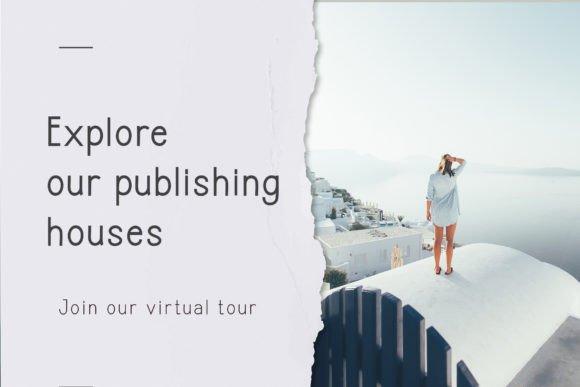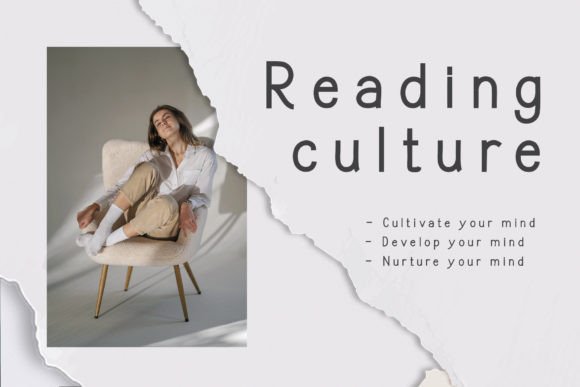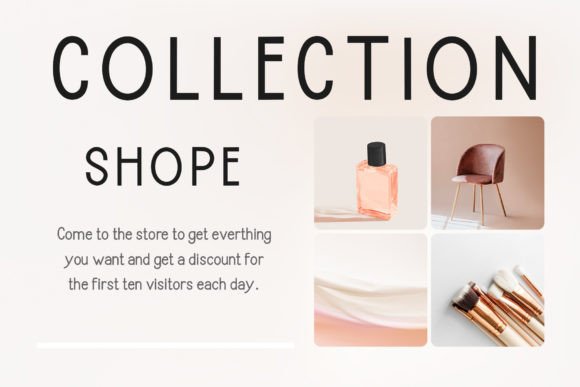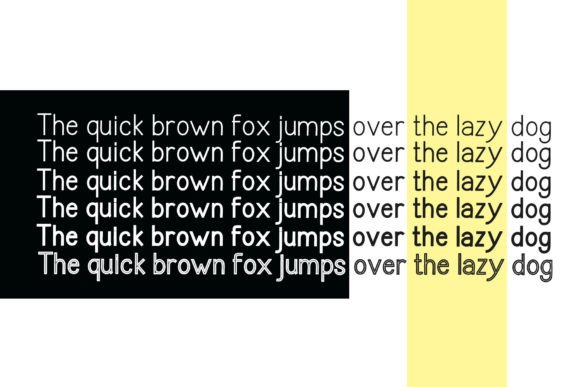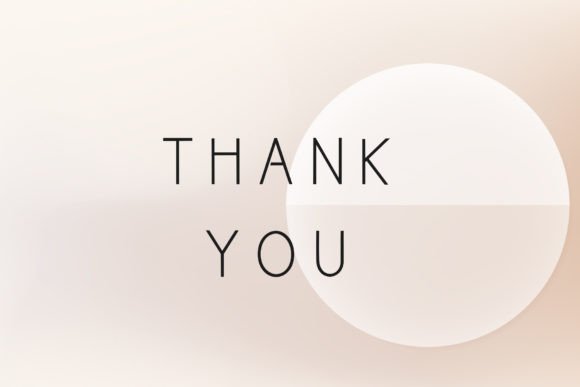
Introduction to Manila Font Font
Fonts play a crucial role in design, and the Manila Font font is a typeface that brings both character and versatility to any project. Whether you’re working on a branding project, a website, or a print design, the Manila Font font offers a unique style that can elevate your work.
Manila is a sleek, professional looking sans serif font.
Incredibly versatile, this typeface is suitable for a wide spectrum of applications .
Key Features of Manila Font Font
Why Choose Manila Font Font?
The Manila Font font is more than just a typeface – it’s a design tool that helps you communicate your message with style and clarity. Its unique character set and versatile design make it suitable for a wide range of applications, from elegant invitations to bold headlines.
With its carefully crafted letterforms and balanced proportions, the Manila Font font ensures readability and visual appeal across all mediums.
What makes Manila Font font special?
The Manila Font font stands out with its unique design, exceptional readability, and versatility across various design applications.